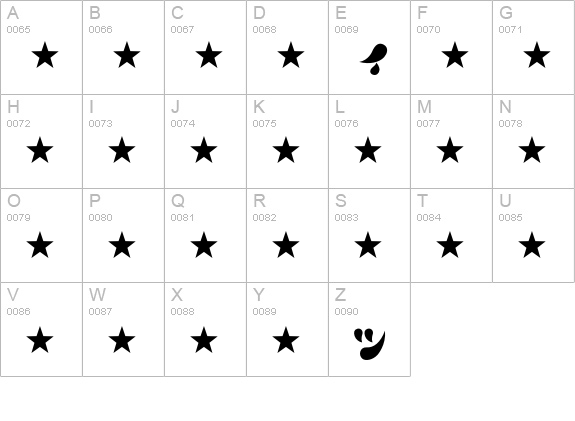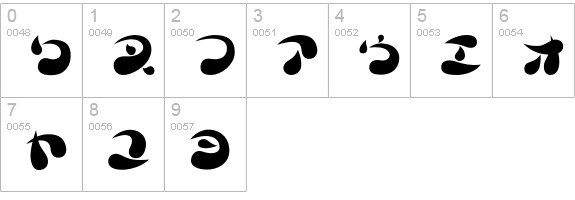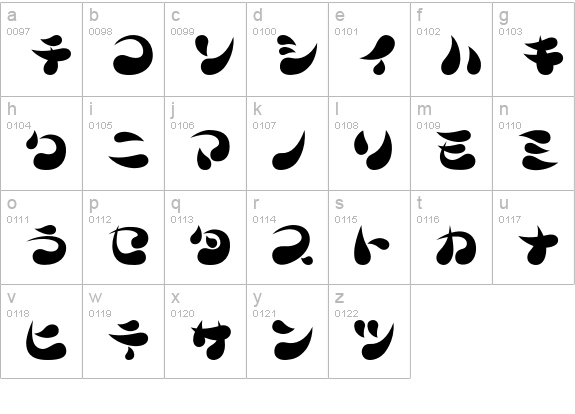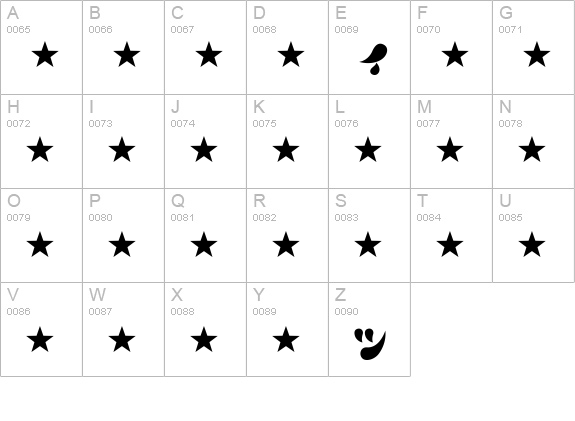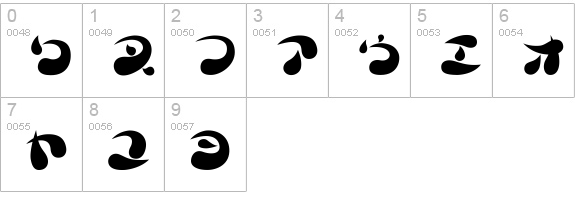
Parade20 Font Details
Parade20 is a stunning font that captures the essence of celebration and festivity. Its bold and playful design is perfect for adding a touch of excitement to any project. The letters are crafted with intricate details, making them stand out and command attention. The characters have a unique charm that exudes joy and energy, making Parade20 the ideal choice for invitations, posters, and banners for parties, parades, and other cheerful events. But what makes Parade20 even more remarkable is that it is not only visually appealing but also free. Yes, you read that right! Parade20 is freely available to download at FontsMarket.com. This means that you can easily access this fantastic font without having to spend a penny. Whether you are a professional designer or an enthusiastic DIYer, Parade20 offers you the opportunity to add a touch of fun and vibrancy to your creations without any cost. So, why wait? Head over to FontsMarket.com and unleash your creativity with Parade20. With its free availability and captivating design, this font is the perfect choice to bring life and excitement to your projects. Download it now and let the celebrations begin!